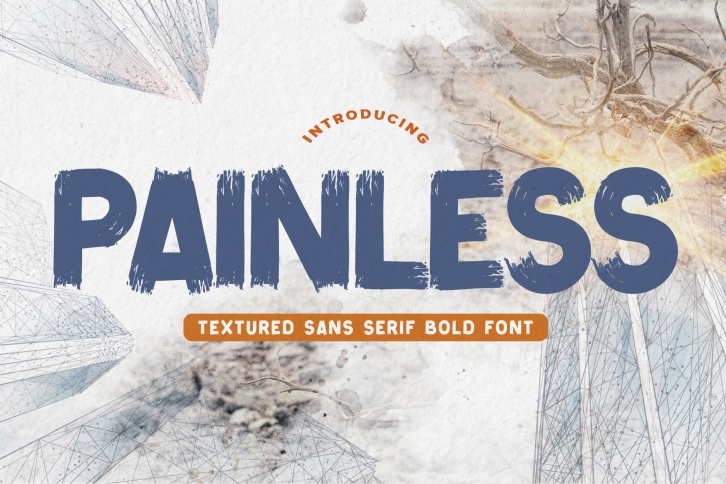
Painless is a casual and modern textured display font. It has charming, authentic, and relaxed characters that can give any text a more natural and unique feel!